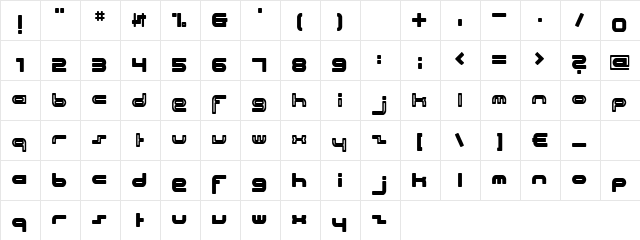
Twisted Pipez Regular
Design Context for Twisted Pipez Typeface
Twisted Pipez is a composed and adaptable typeface that performs quietly and consistently across a wide range of design contexts.